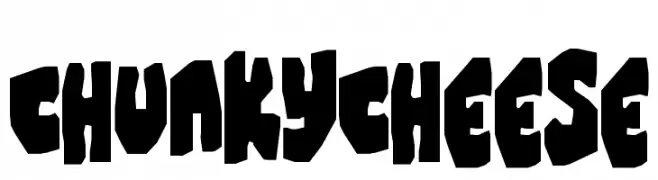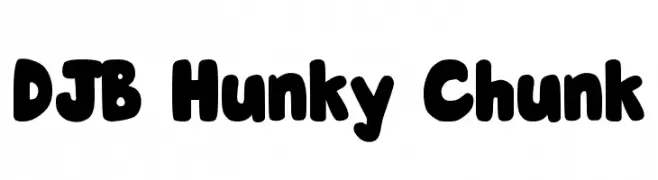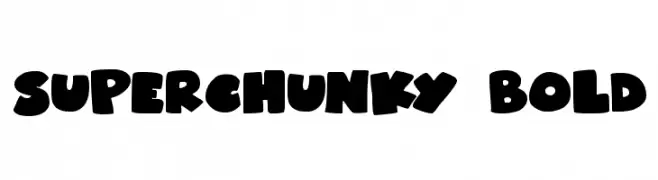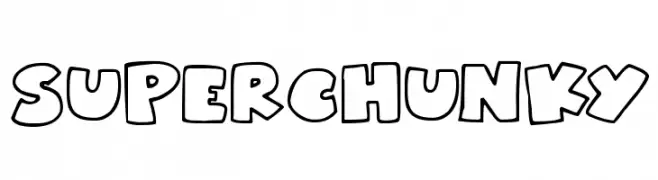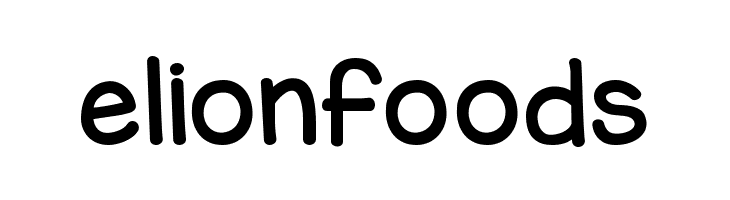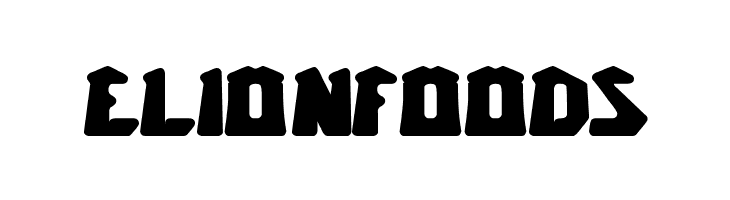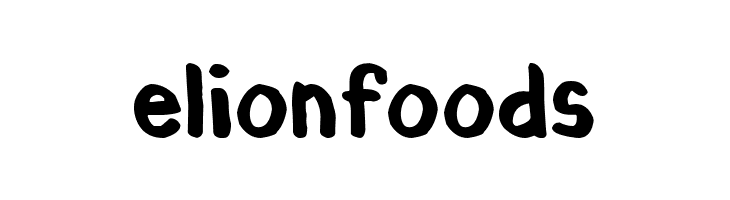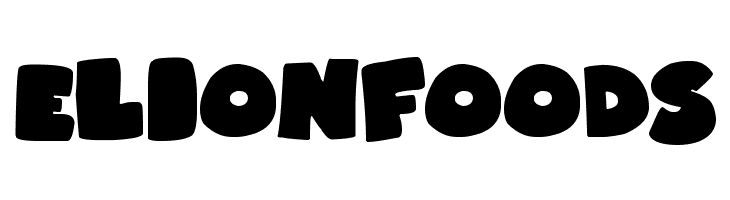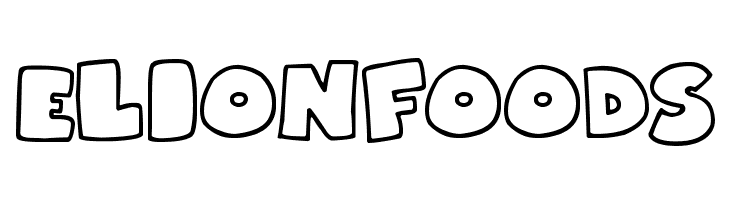
( Fonts by Kimberly Geswein )
A playful, chunky font with rounded, bold letters perfect for children's materials.
A bold, playful font with chunky, geometric letters.
( Fonts by Darrell Flood )
A bold, playful font with chunky outlines and a whimsical, cartoonish style.
( Fonts by Darrell Flood )
A bold, playful font with chunky, irregular shapes and a whimsical style.
( Fonts by Chequered Ink )
A bold, playful font with thick, rounded strokes and a hand-drawn feel.
( Darcy Baldwin Fonts - darcybaldwin.com )
A bold, playful font with thick, rounded letters and a friendly style.
( Nght's Place - www.crosswinds.net/~nghtmvs/font/fonts1.html )
A bold, chunky font with a playful and dynamic style.